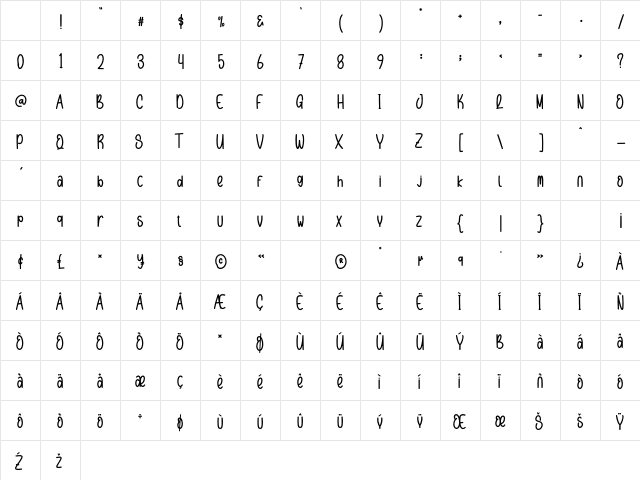
Complete Winter December Regular glyph index. Displaying only characters natively supported by Winter December Regular font.
Winter December is a composed and adaptable typeface that performs quietly and consistently across a wide range of design contexts.